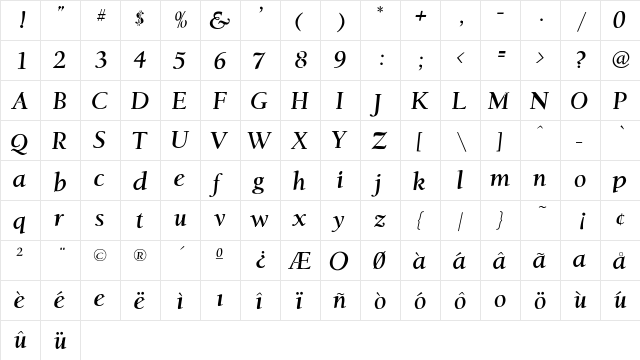
RSJacksonville Regular
Design Context for RSJacksonville Typeface
RSJacksonville offers clean, dependable letterforms without strong stylistic allegiance, making it a practical choice for designers who need flexibility.